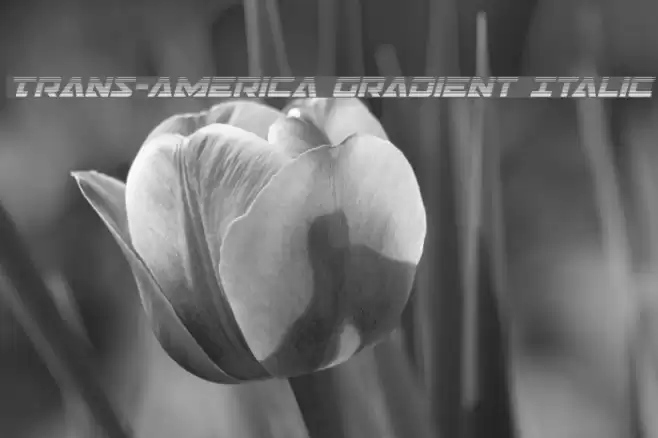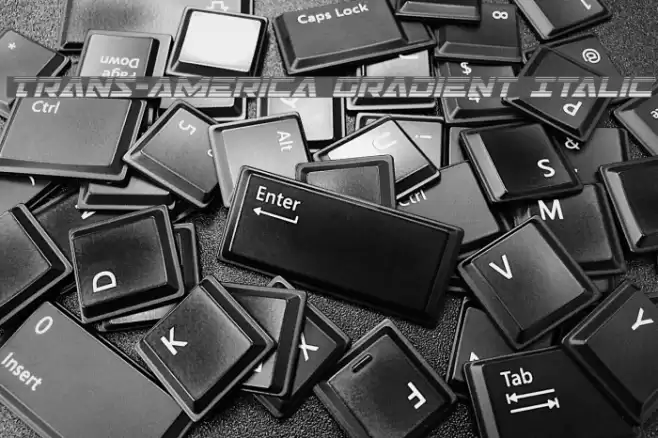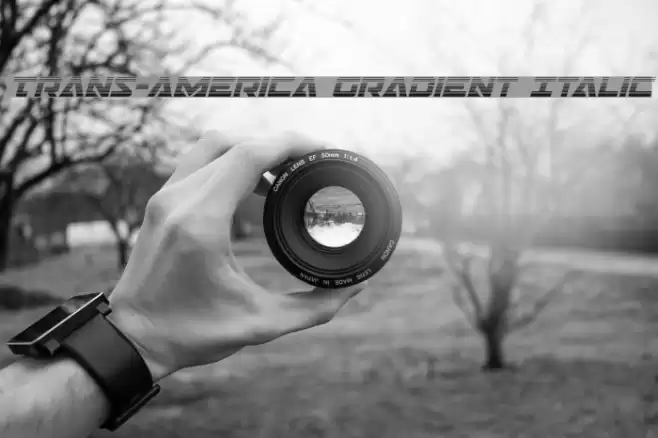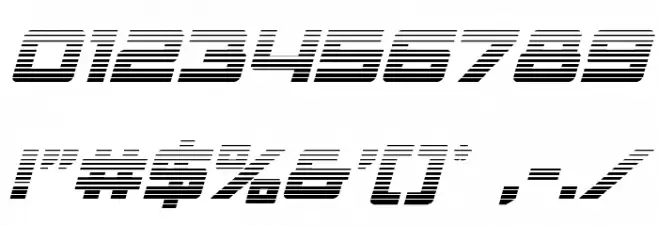
Trans-America Gradient Italic Font
Trans-America Gradient Italic Description
This font features a dynamic, italicized style with a distinct gradient effect created by horizontal lines. The characters are bold and have a futuristic, aerodynamic appearance, reminiscent of speed and movement. The uppercase and lowercase letters maintain a consistent slant, enhancing the sense of motion. The numbers and special characters follow the same design principles, ensuring uniformity across all glyphs. This font is ideal for projects that require a modern and energetic look, such as sports branding, automotive designs, or technology-related themes.
A bold, italicized font with a gradient effect, exuding speed and modernity from Uncategorized fonts.
- Proposed Projects: Ideal for sports branding, automotive designs, tech-related themes, and dynamic logos.